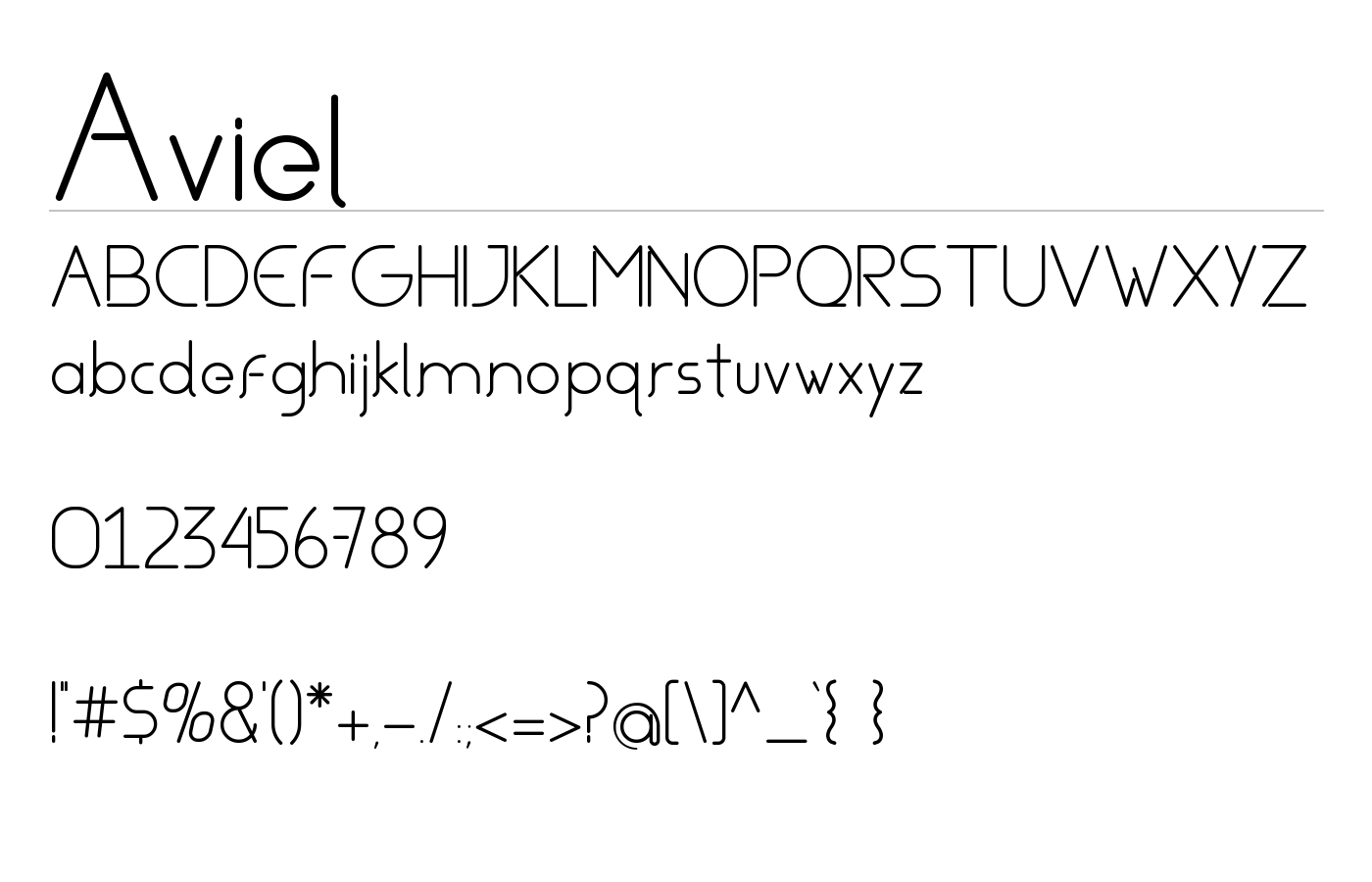
Aviel is a sleek, modern sans serif font characterized by its thin, clean lines and geometric letterforms that convey a minimalist and elegant look. With a light weight, normal width, and a moderately high x-height, it offers excellent legibility while maintaining a stylish, contemporary feel, making it ideal for modern branding, editorial design, and digital interfaces where a refined yet approachable aesthetic is desired.
Aviel Font
About Aviel Font
| Font family | Aviel Font |
| Release date | 2012-12-15 |
| Designer | Asley Cruz |